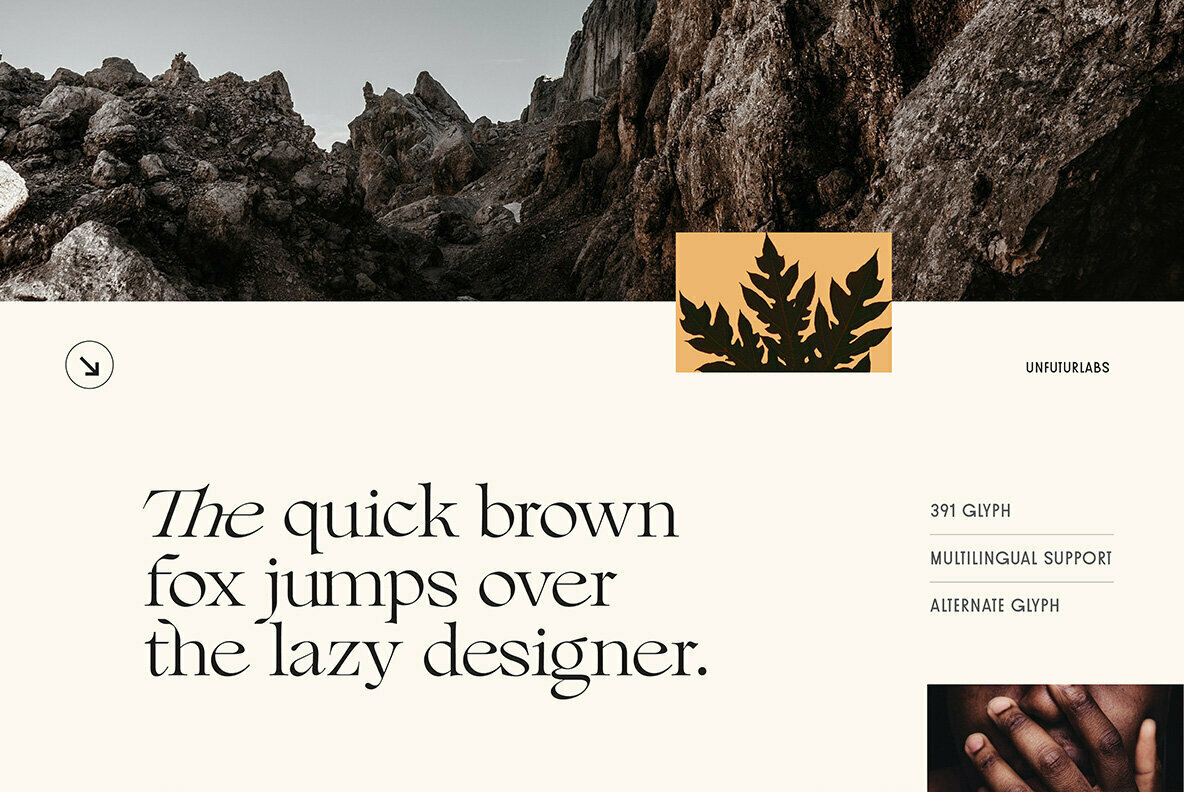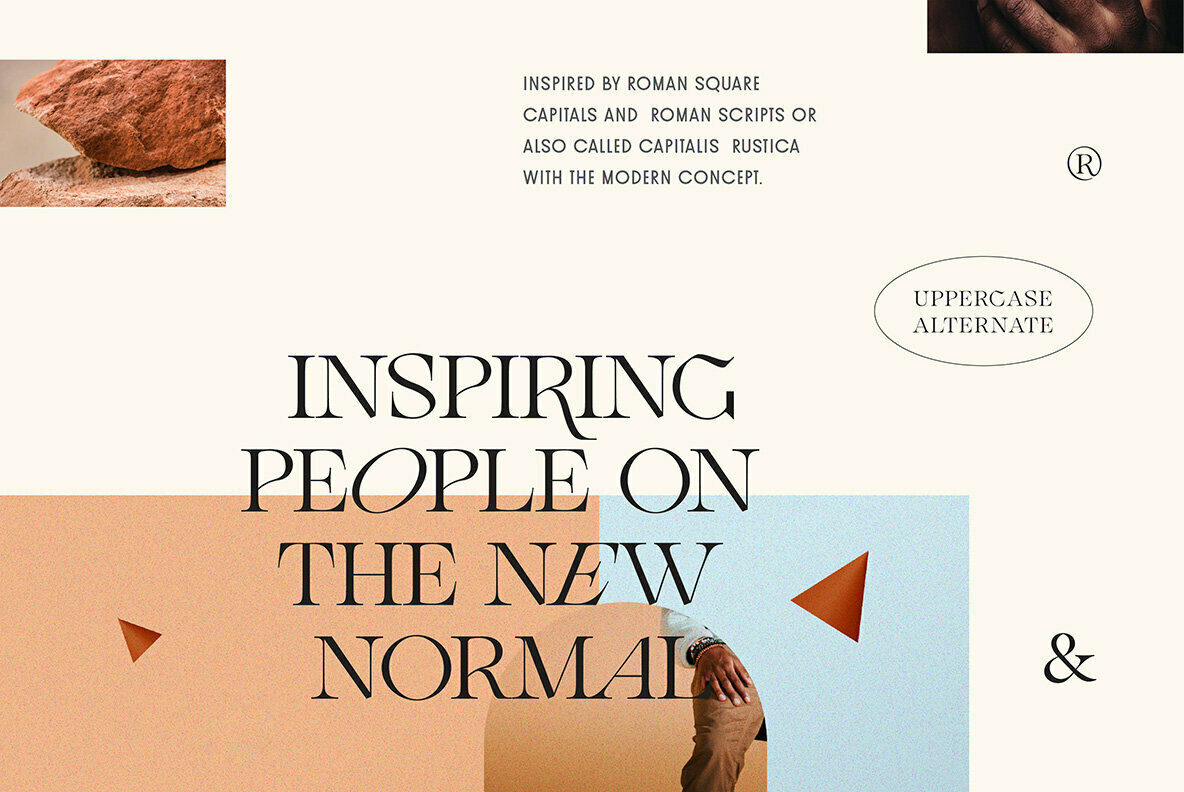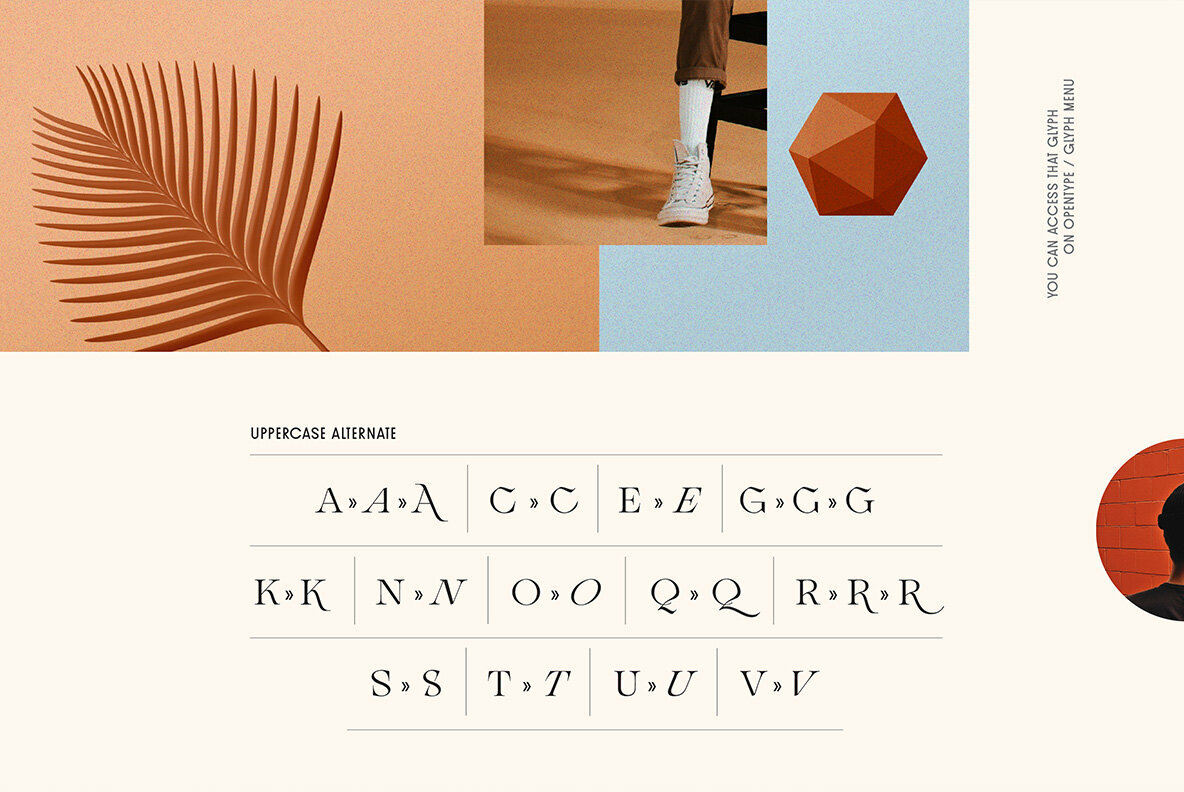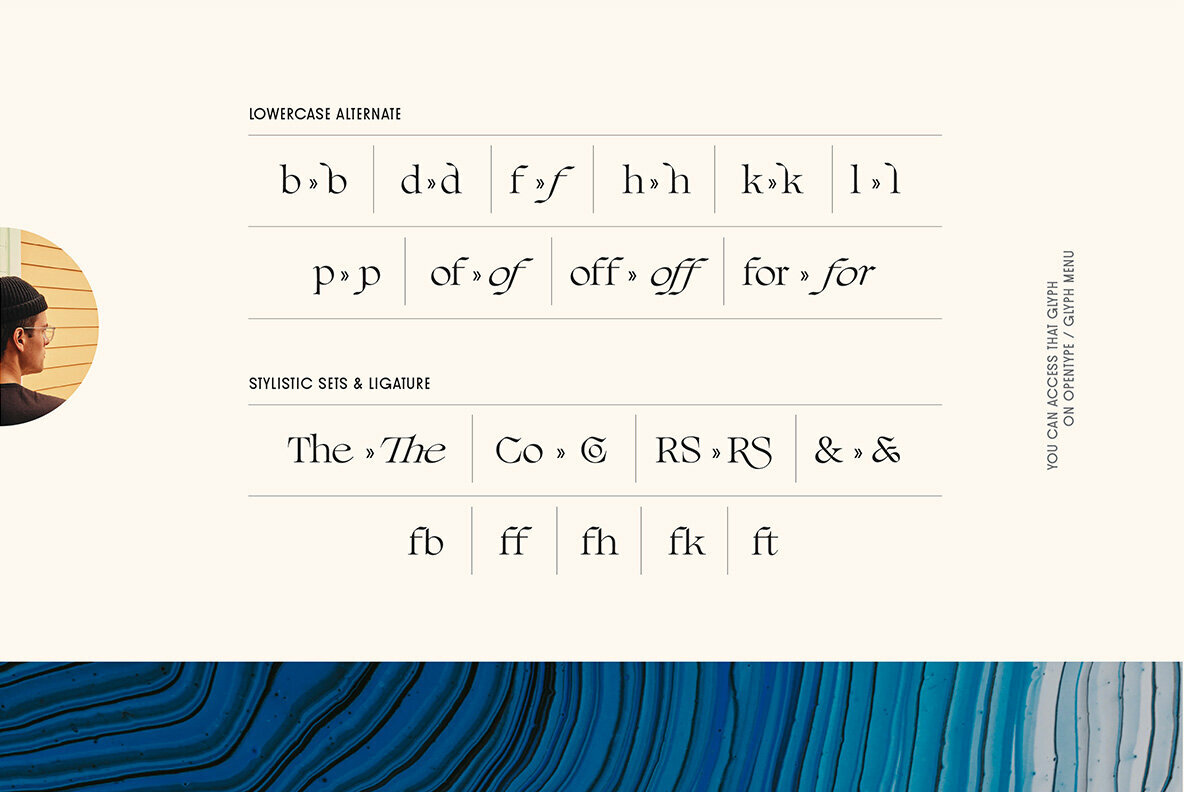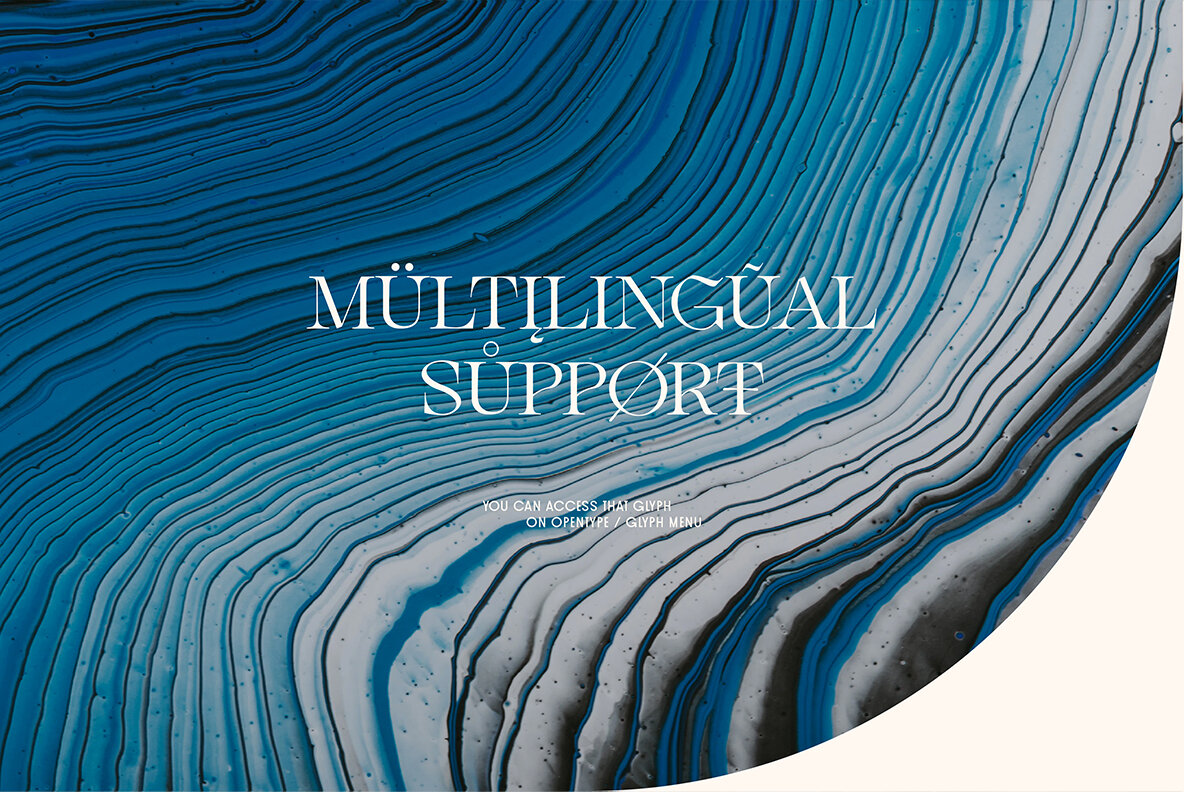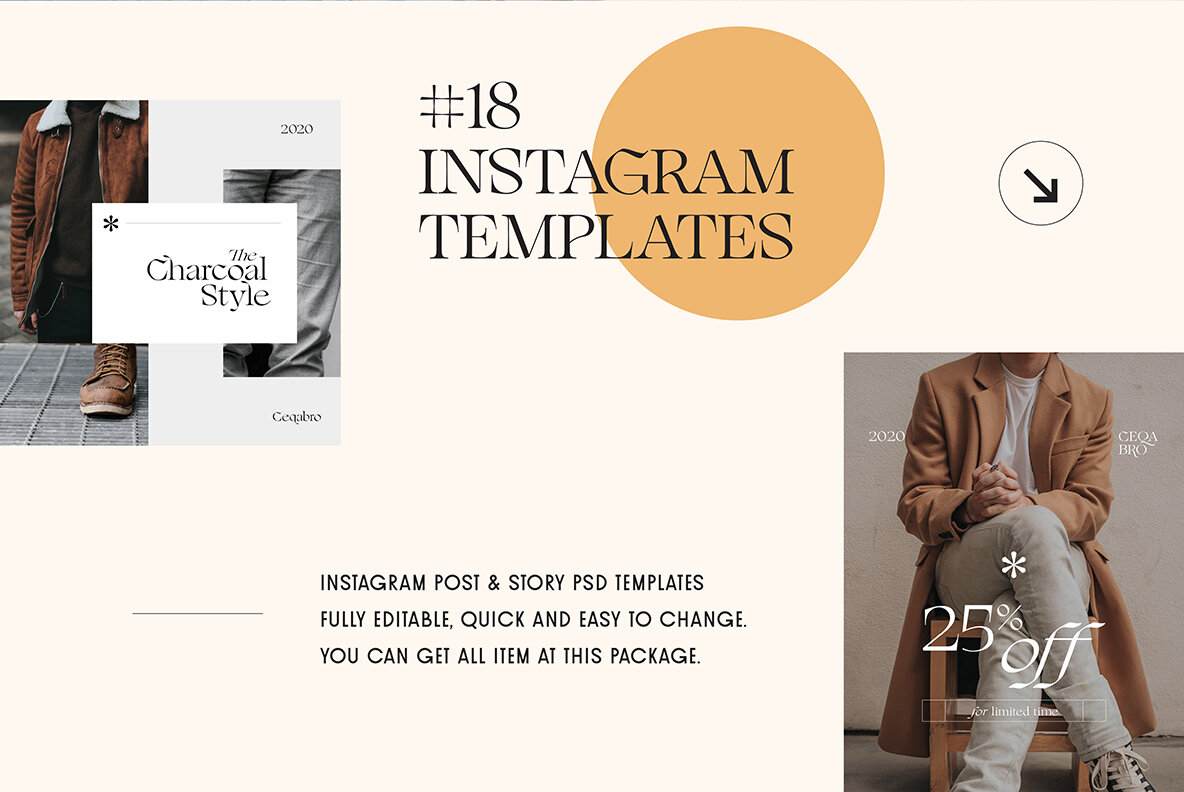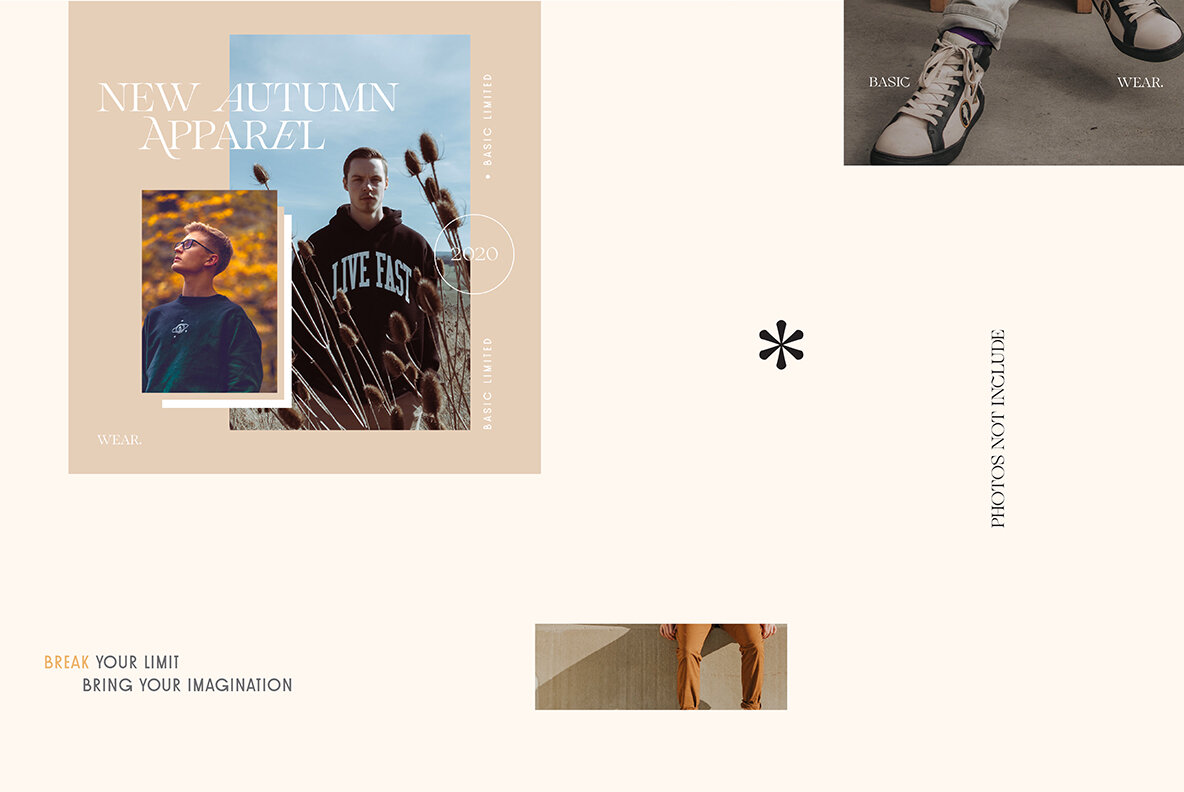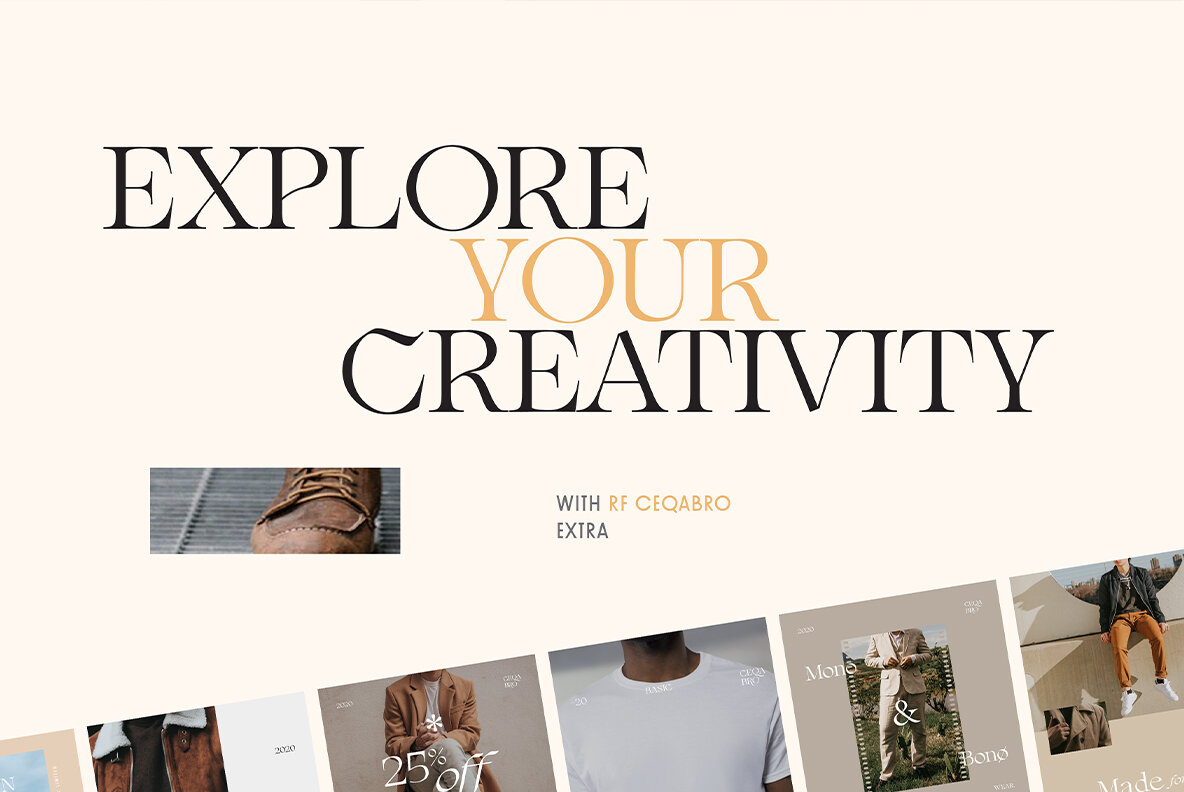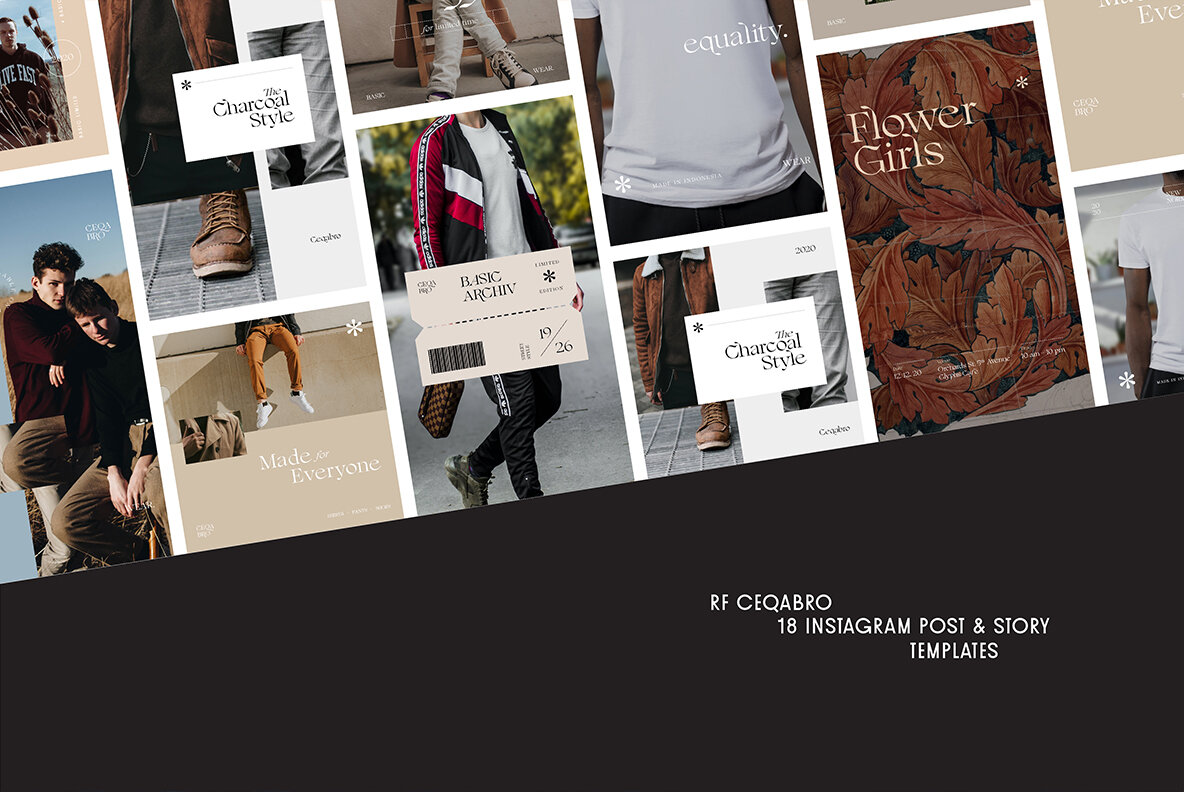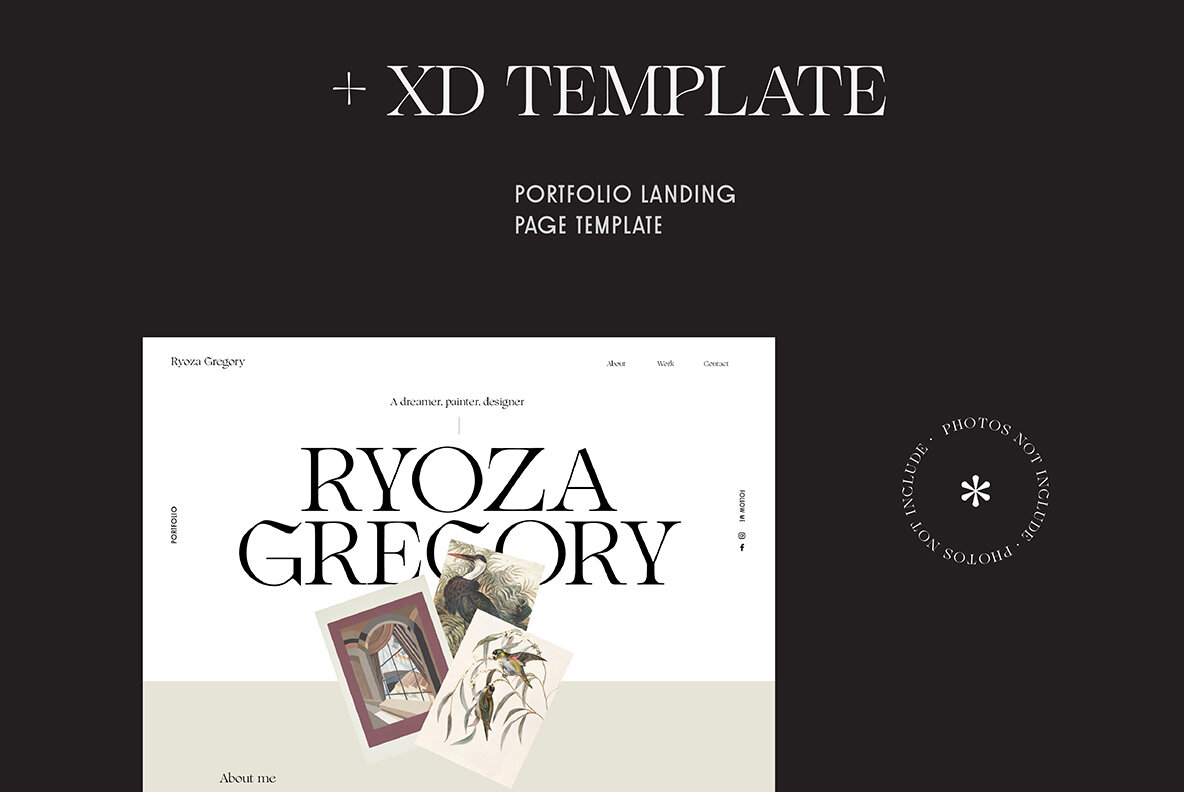
RF Ceqabro Display Font
RF Ceqabro Display
The RF Ceqabro Display from Unfutur Studio offers a sophisticated blend of historic Roman Square Capitals and the more dynamic Capitalis Rustica. Updated with a modern edge, it brings character and style to a variety of creative projects. Especially designed for those seeking unique design elements and font collections, RF Ceqabro is perfect for logos, social media posts, packaging, and more. Its versatility extends to wedding invitations, video intros, and other creative endeavors.RF Ceqabro Display: Modern Serif Inspired by Roman Elegance